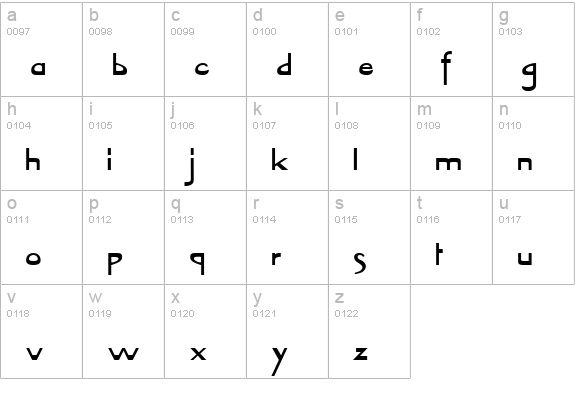
TabletExtended Bold Font Details
TabletExtended Bold is a strong, high-contrast variant in the TabletExtended typeface family \xE2\x80\x94 well suited to headlines, attention-grabbing titles, and strong calls-to-action.
TabletExtended Bold is a visually striking and bold font that exudes confidence and modernity. With its clean lines and strong presence, this font is perfect for making a powerful statement in any design project. Whether it's for a headline, logo, or poster, TabletExtended Bold will capture attention and leave a lasting impression. This font combines the elegance of a serif font with the contemporary feel of a sans-serif, creating a unique and versatile style that is both classic and cutting-edge. The bold weight adds an extra level of impact, making it ideal for headlines or any text that needs to stand out. What sets TabletExtended Bold apart is not only its aesthetic appeal, but also its accessibility. This font is freely available to download at FontsMarket.com, ensuring that designers and creatives of all backgrounds can easily incorporate it into their work. Its availability for free makes it an even more valuable asset for individuals and businesses alike. The versatility of TabletExtended Bold allows it to be used across various design projects, whether it's for print or digital mediums. From branding and advertising to web design and packaging, this font will elevate any design and give it a touch of professionalism and elegance. With TabletExtended Bold, you are not only getting a visually striking font, but also a tool that empowers you to create captivating and memorable designs. Its bold weight and modern style make it perfect for making a statement and standing out from the crowd. So why wait? Download TabletExtended Bold now for free at FontsMarket.com and unleash your creativity with this exceptional font.